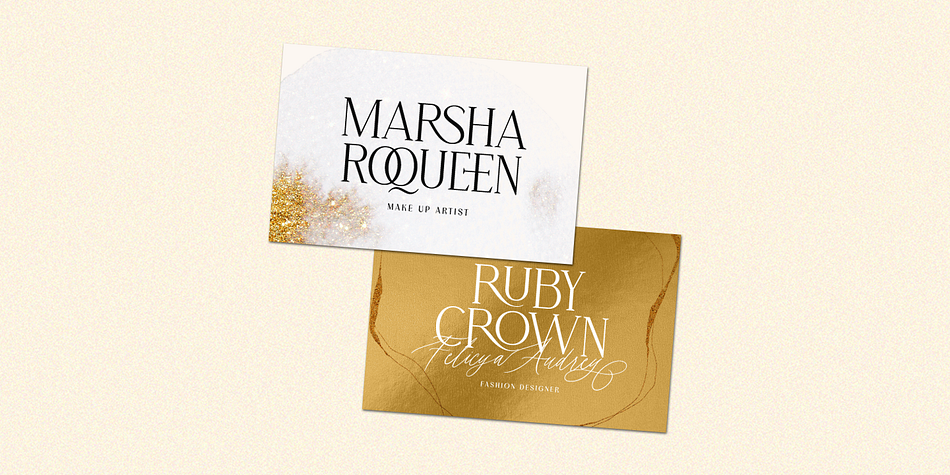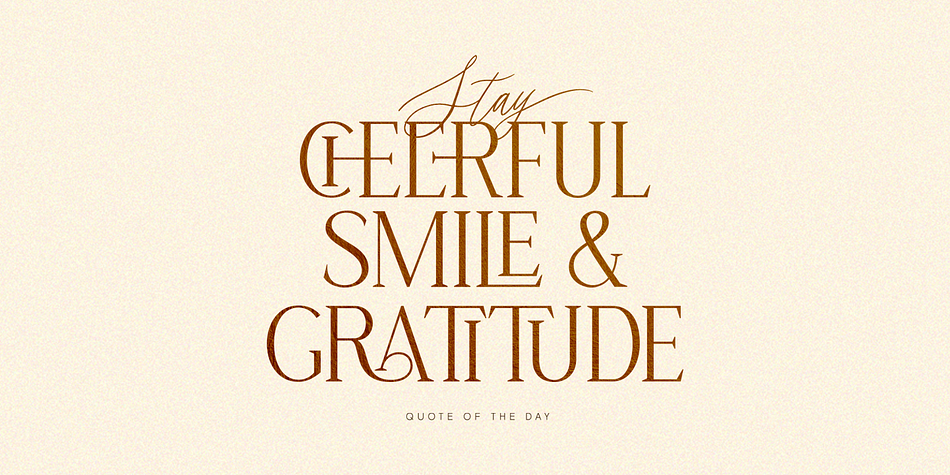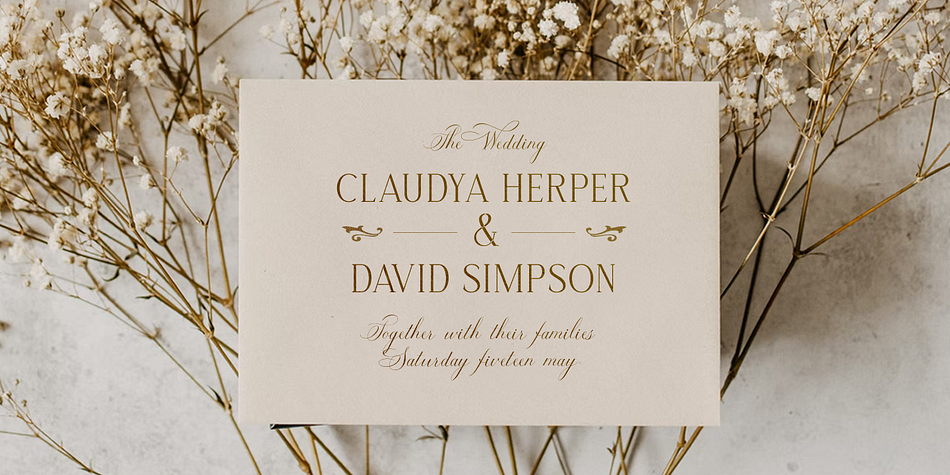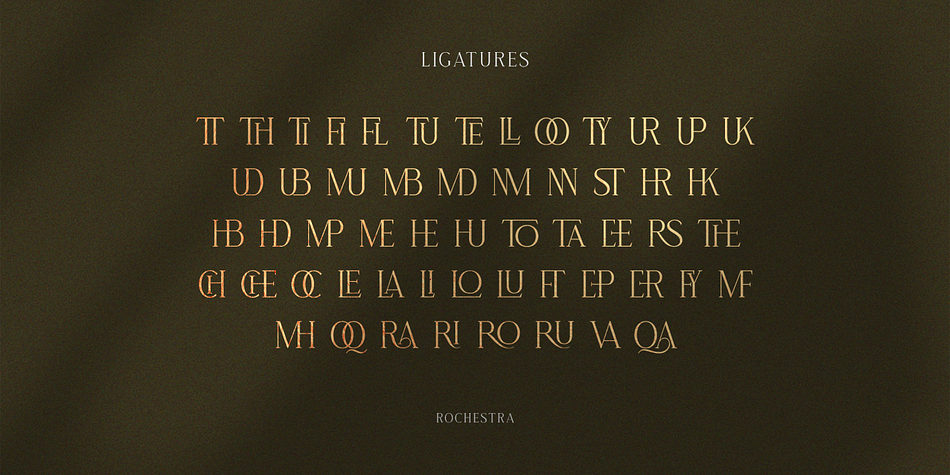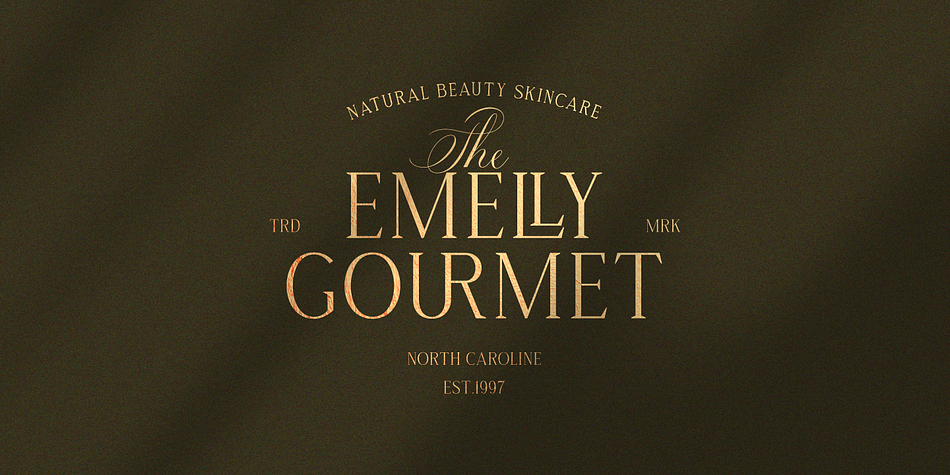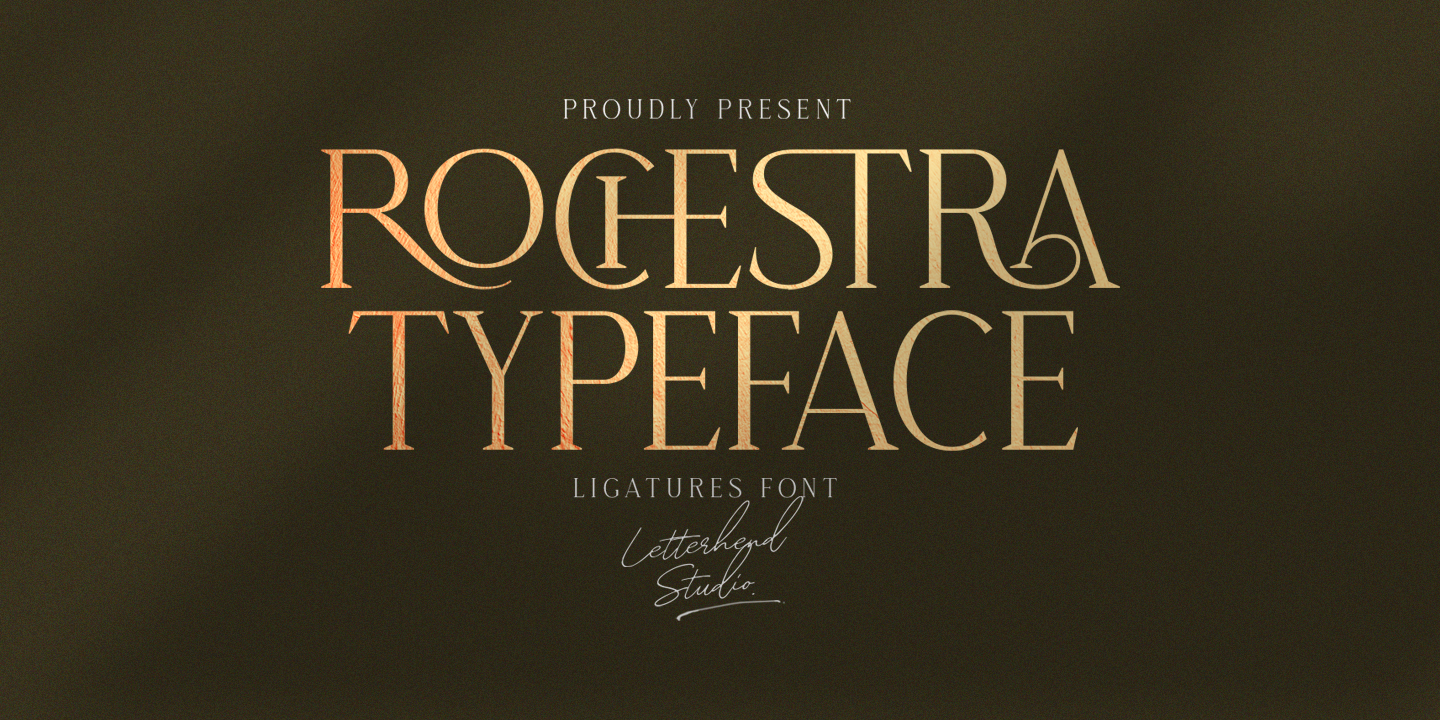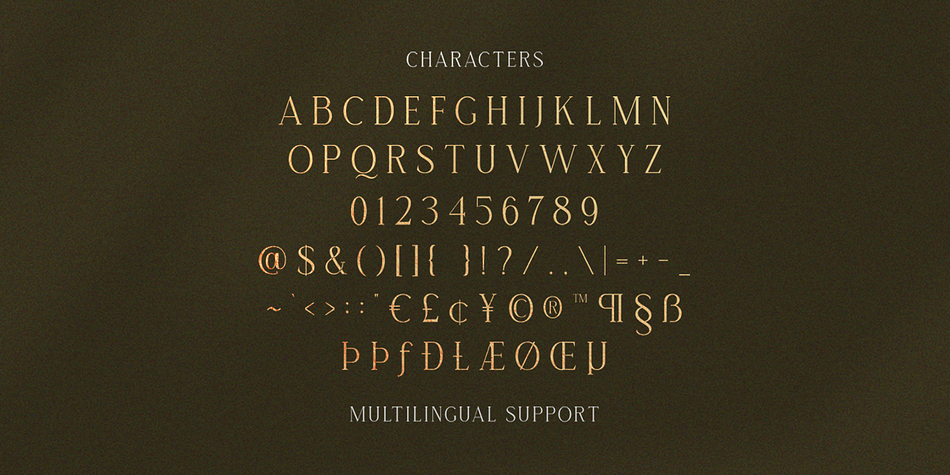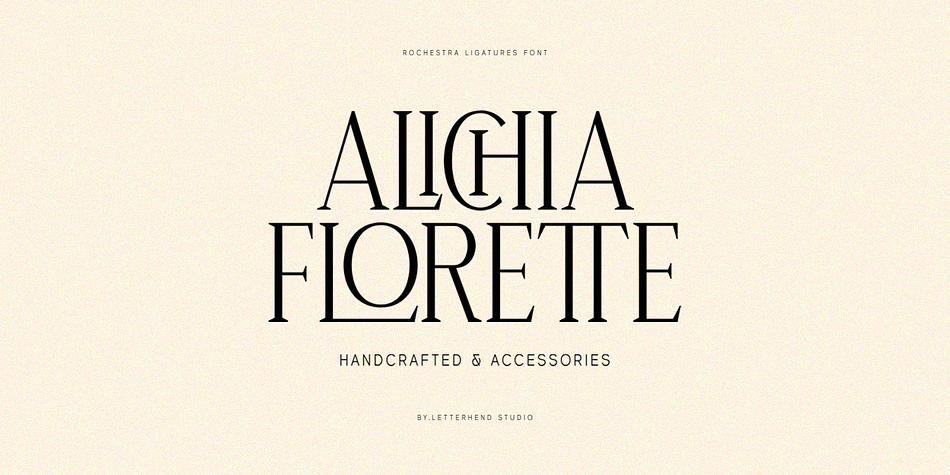
Designed by Hendry Juanda, Rochestra is a serif font family published by Letterhend Studio.
Rochestra Typeface is a sophisticated serif unique ligature characters. Perfectly to be applied to the other various formal forms such as invitations, labels, logos, magazines, books, greeting / wedding cards, packaging, fashion, make up, stationery, novels, labels or any type of advertising purpose.
- alternates